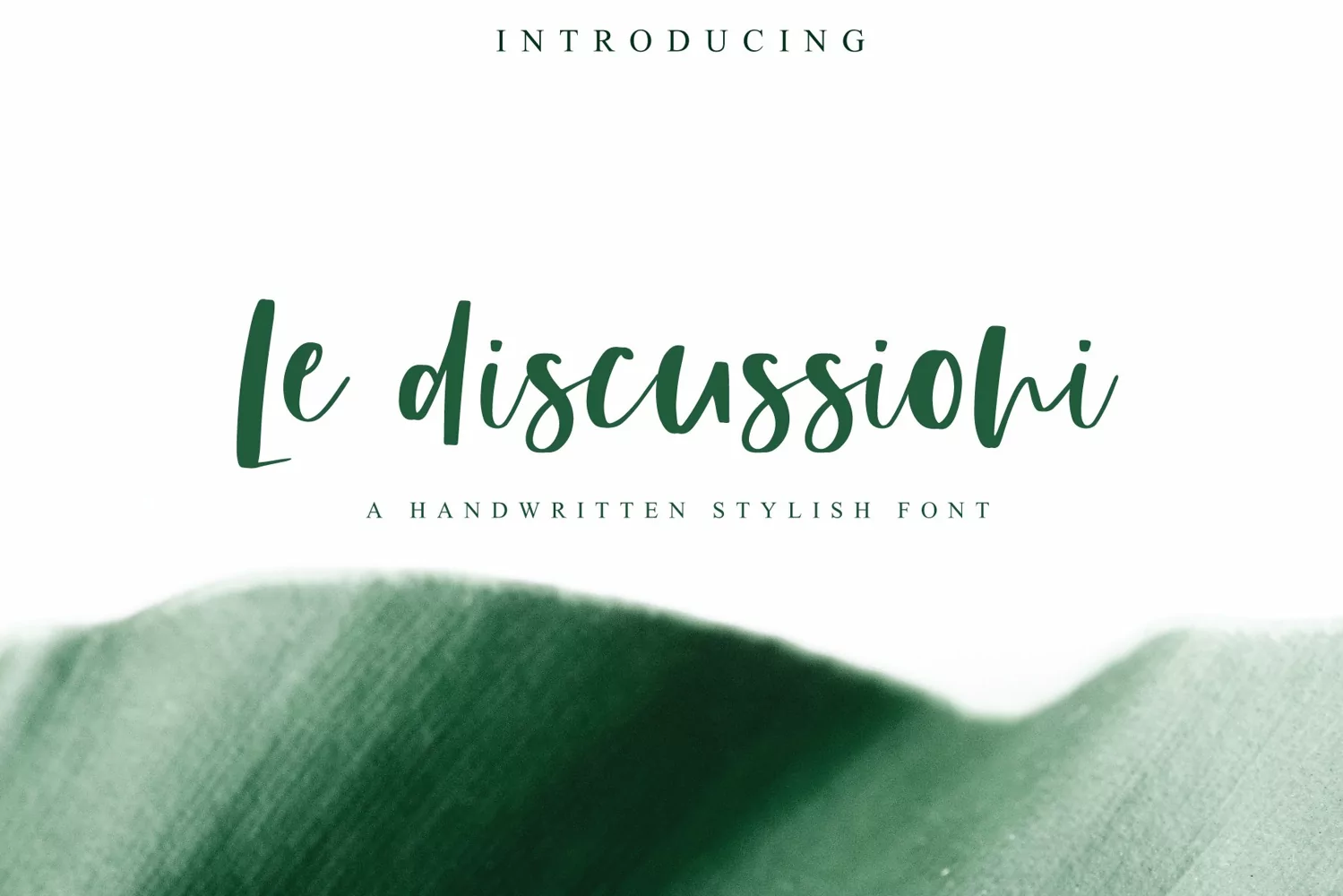
Le Discussioni is a carefully crafted hand drawn font. Exquisite in detail and designed with a love of typography. The fat and thin strokes resembles calligraphy. That gives this font a classic yet modern appeal. Intrigue and entertain with your designs and Le Discussioni.